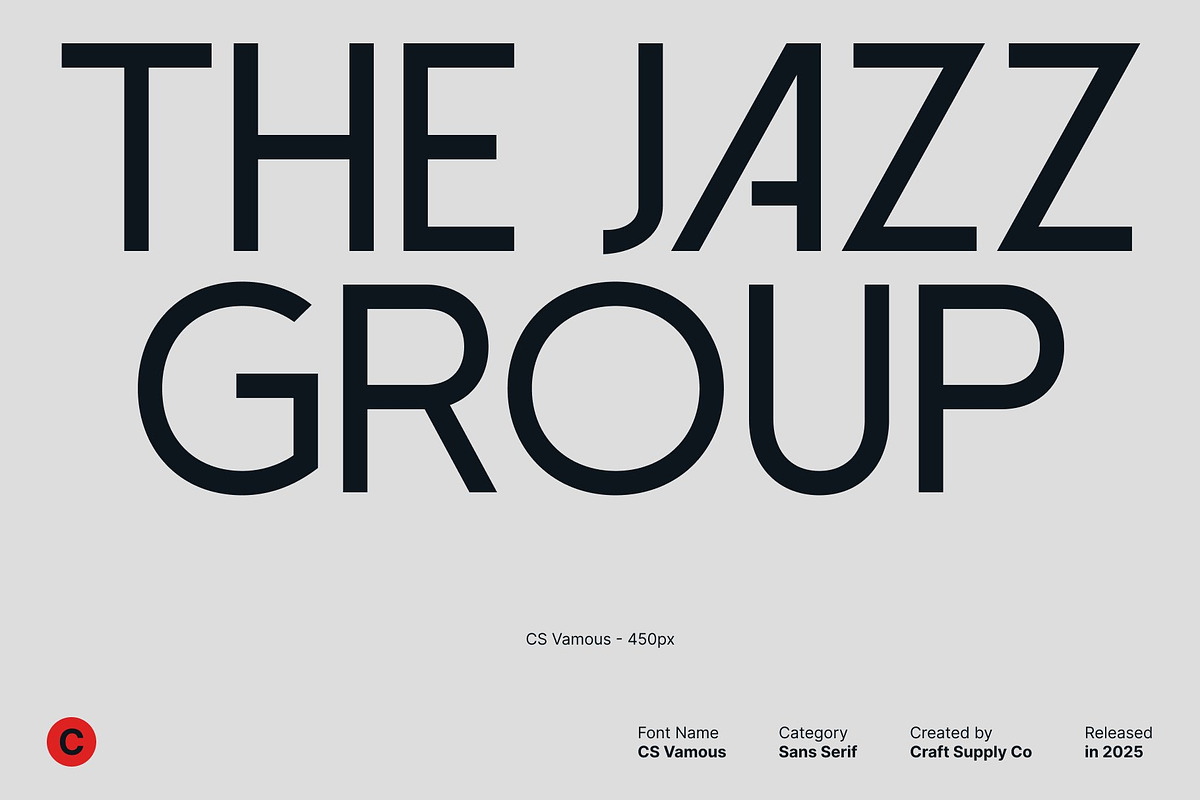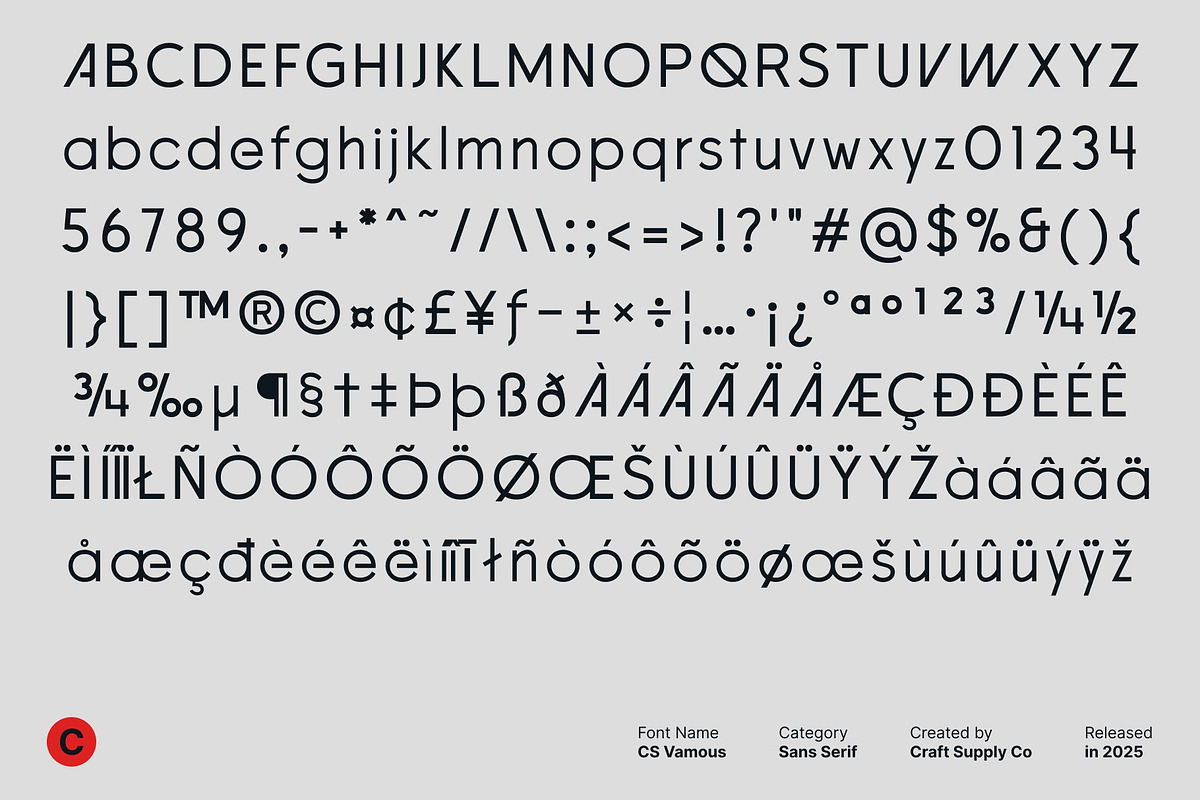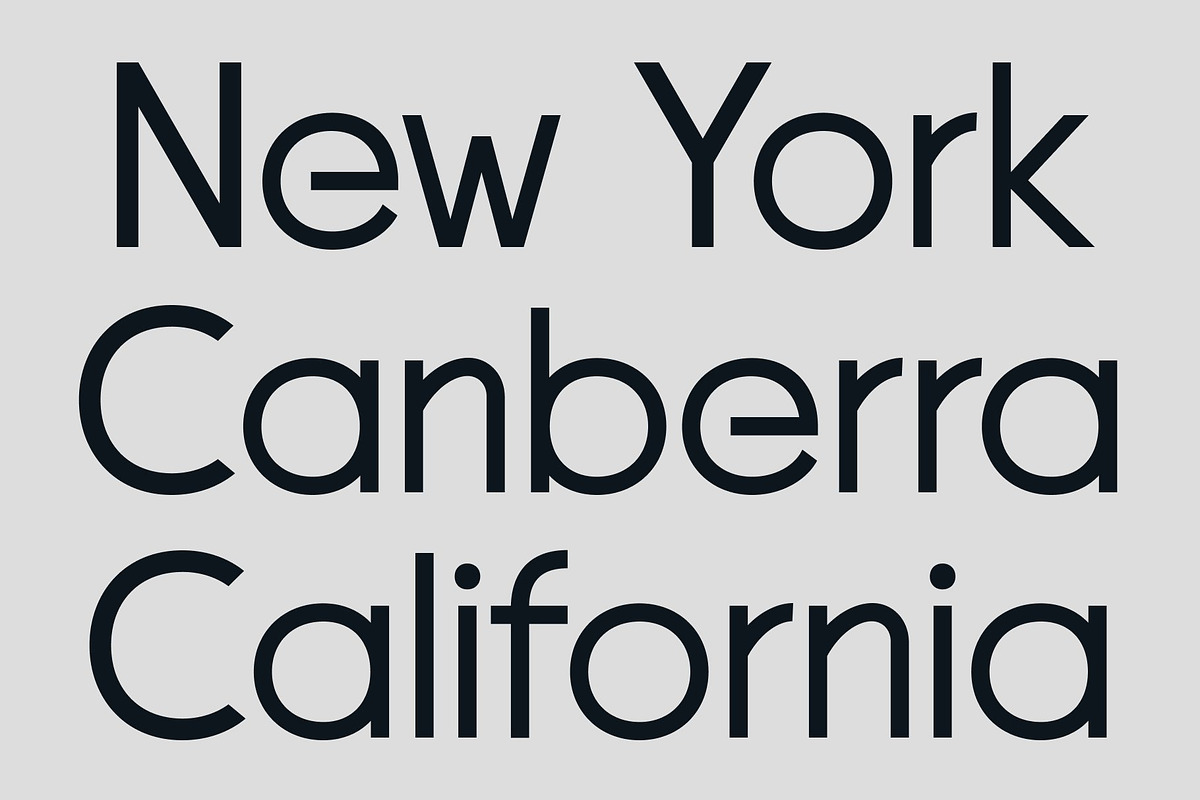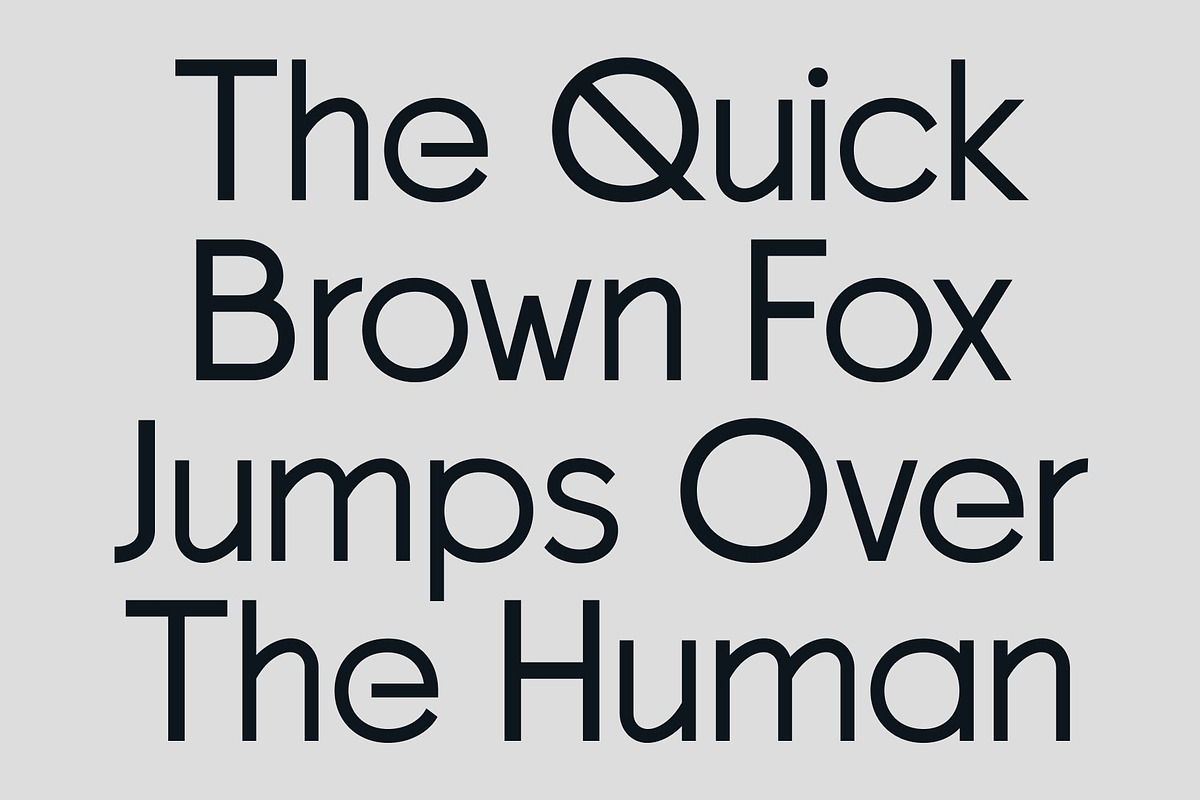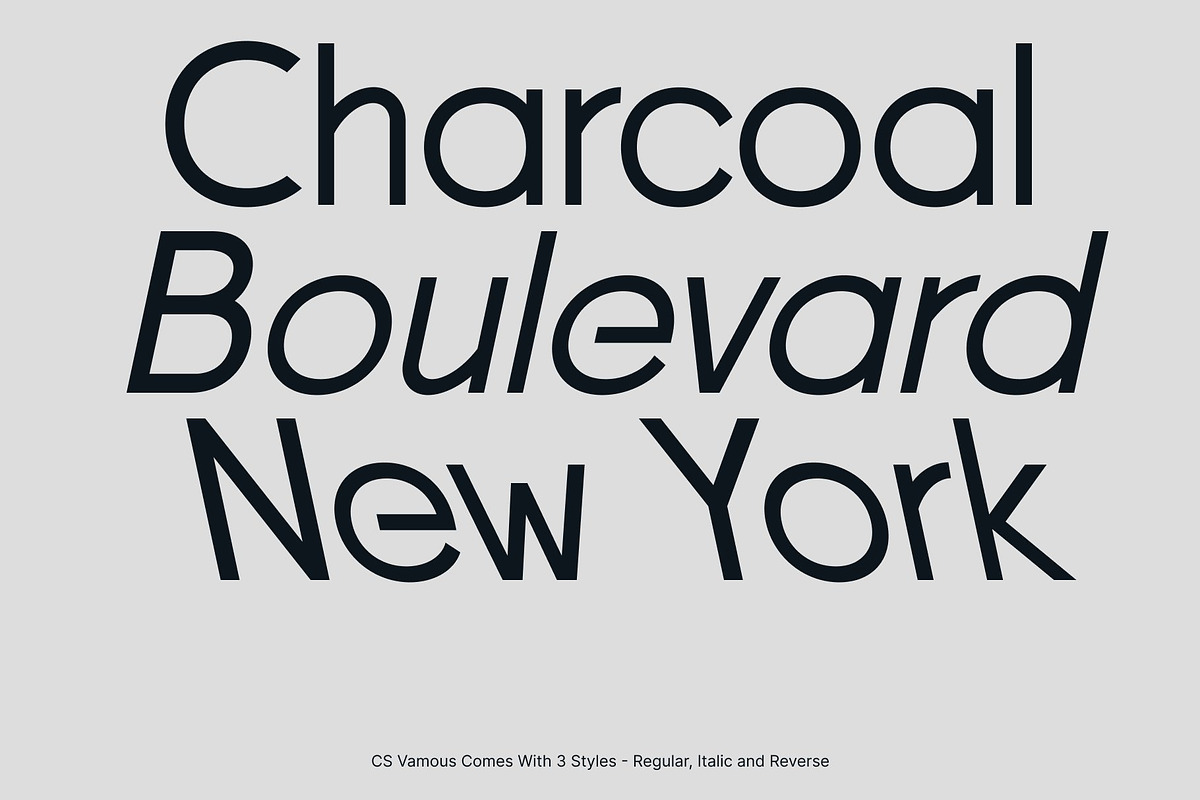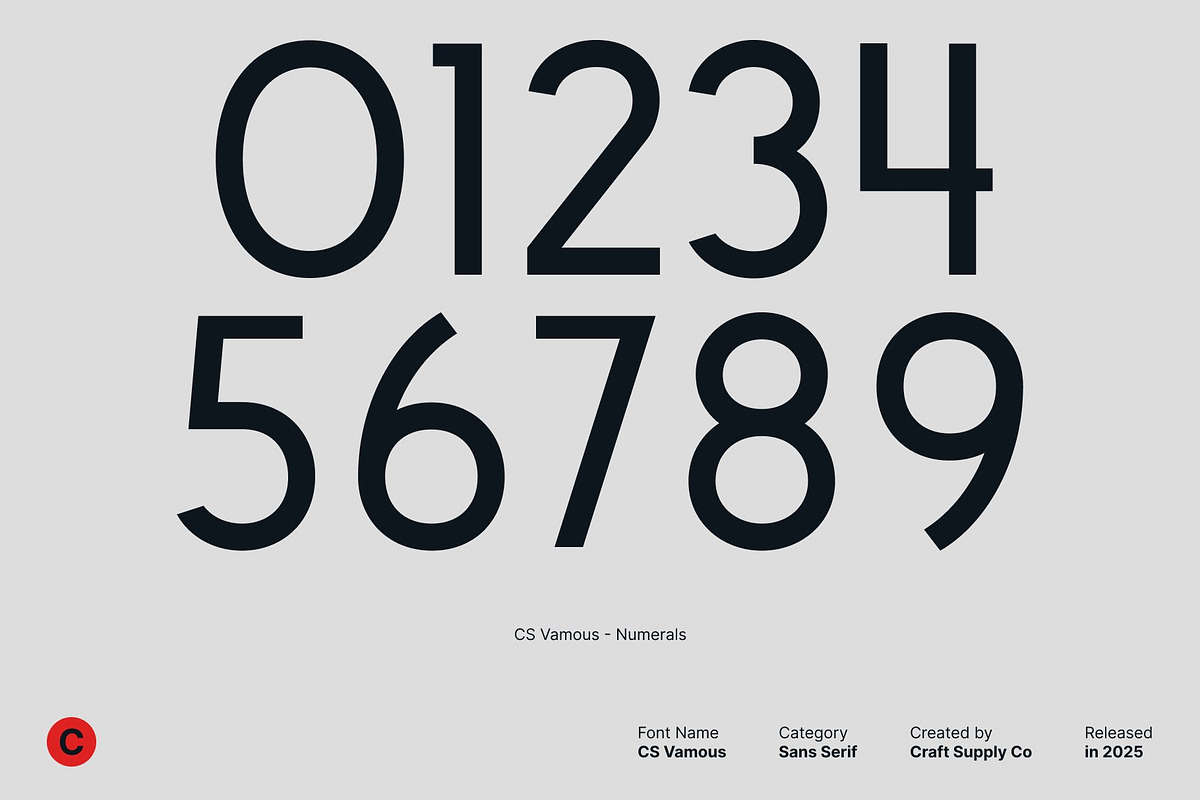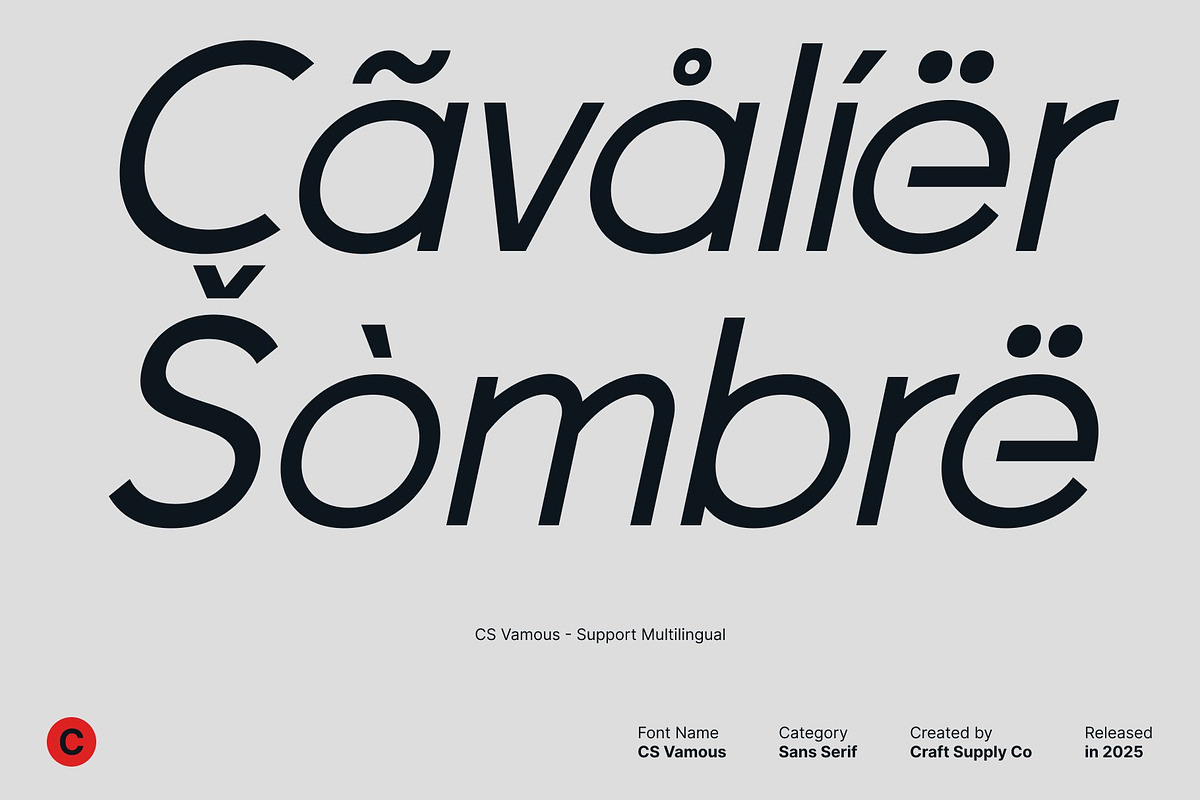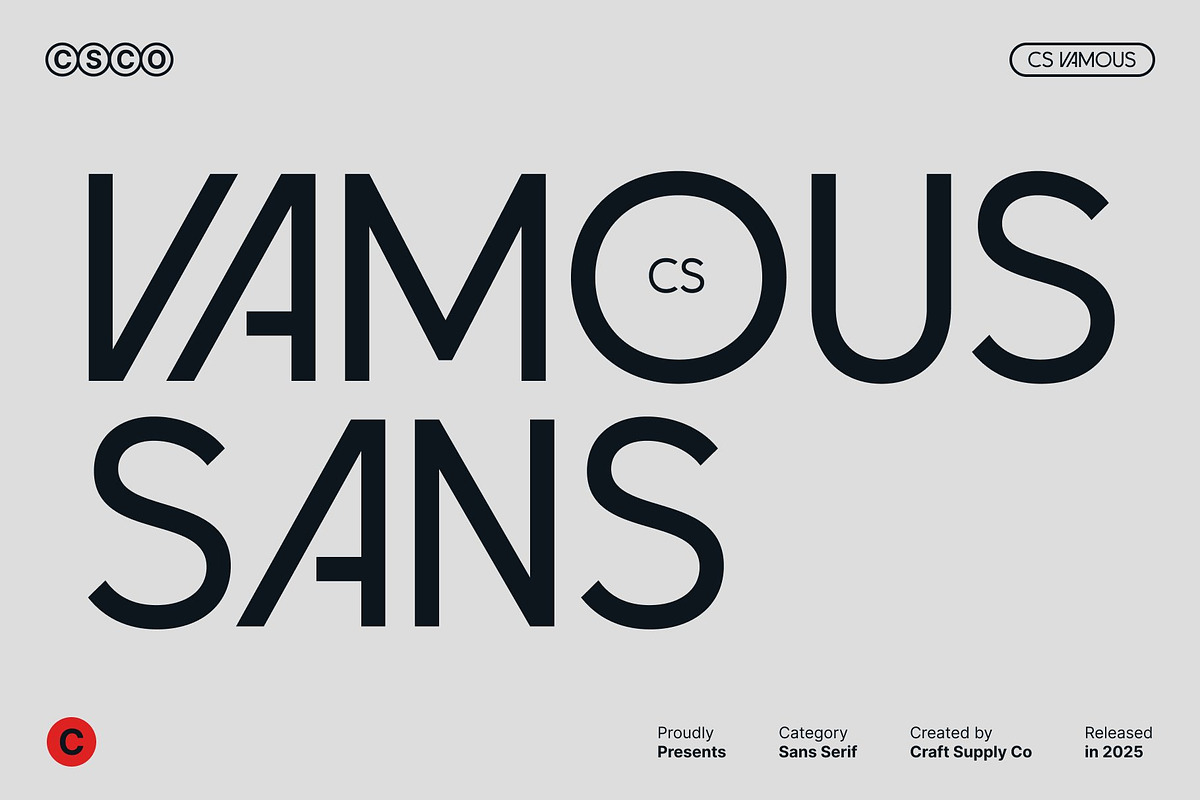
CS Vamous – Modern Sans Serif
CS Vamous – Modern Sans Serif Font with Clean Geometric Style
Modern Geometric Sans Serif Font This is a modern sans serif font designed with clean geometry and a stylish, contemporary attitude. Built on precise shapes and balanced proportions, this typeface delivers a fresh and cool visual tone that feels modern, confident, and forward-looking. Its minimalist construction makes it an excellent choice for designers seeking clarity, simplicity, and modern sophistication in their typography.
Clean Structure with Geometric Precision The letterforms of are crafted with consistent strokes and refined geometric forms, creating a smooth and harmonious rhythm across every character. This clean structure enhances readability while maintaining a sharp and fashionable appearance. The geometric approach gives the font a sense of order and modern efficiency, making it visually appealing without unnecessary complexity.
Fresh and Stylish for Modern Visual Concepts This font is designed to support modern design directions that emphasize freshness and innovation. Its cool and contemporary character works perfectly for projects that aim to feel current and trend-aware, such as lifestyle branding, creative campaigns, and modern editorial layouts. The font communicates simplicity and confidence, helping designs feel light, modern, and visually engaging.
Versatile Font for Logos, Titles, and Posters Highly adaptable across a wide range of applications, performs beautifully in logo design, titles, posters, web headers, and promotional materials. Its clean sans serif form ensures strong legibility at display sizes while maintaining a stylish and professional look.
- CS Vamous Regular
- CS Vamous Italic
- CS Vamous Reverse Italic